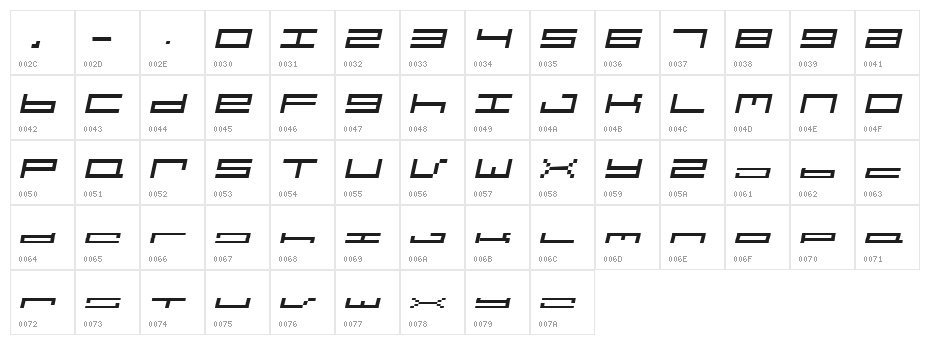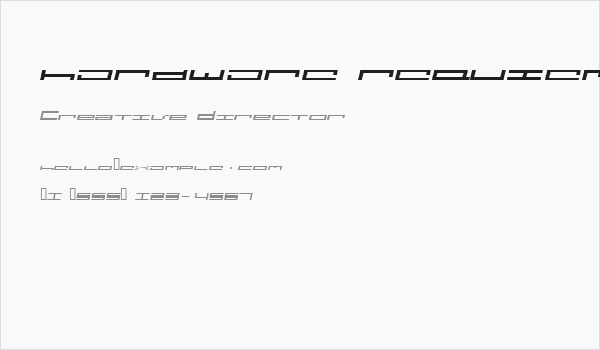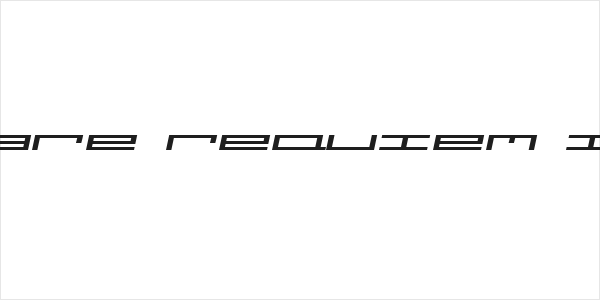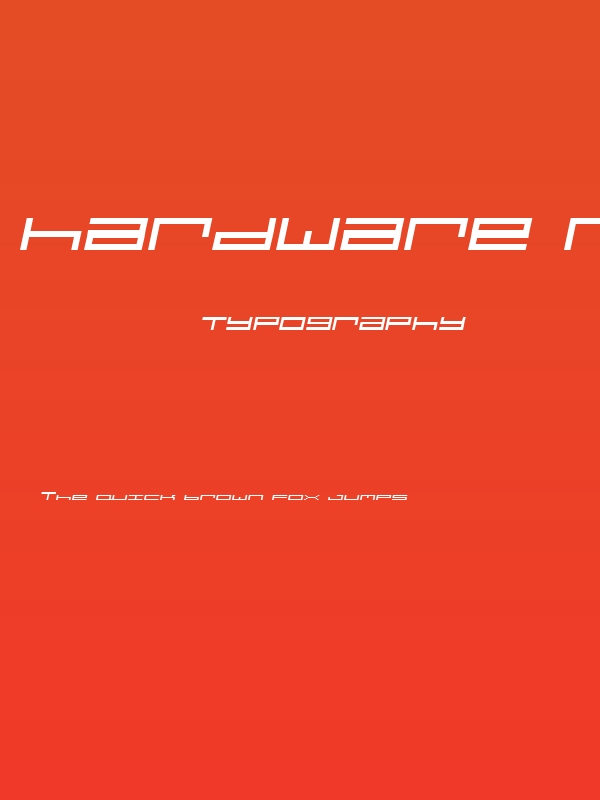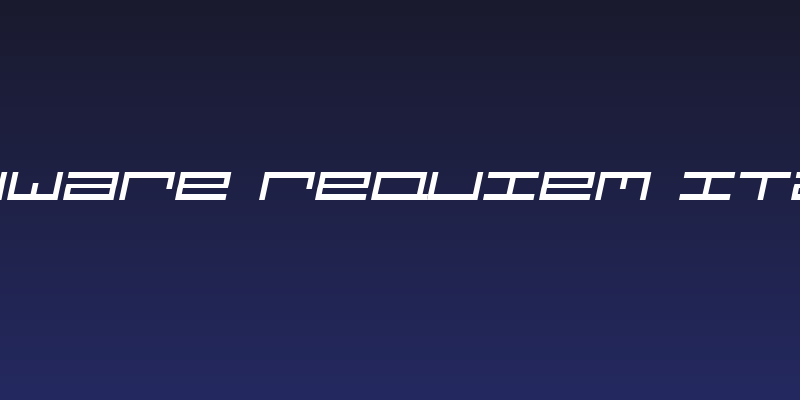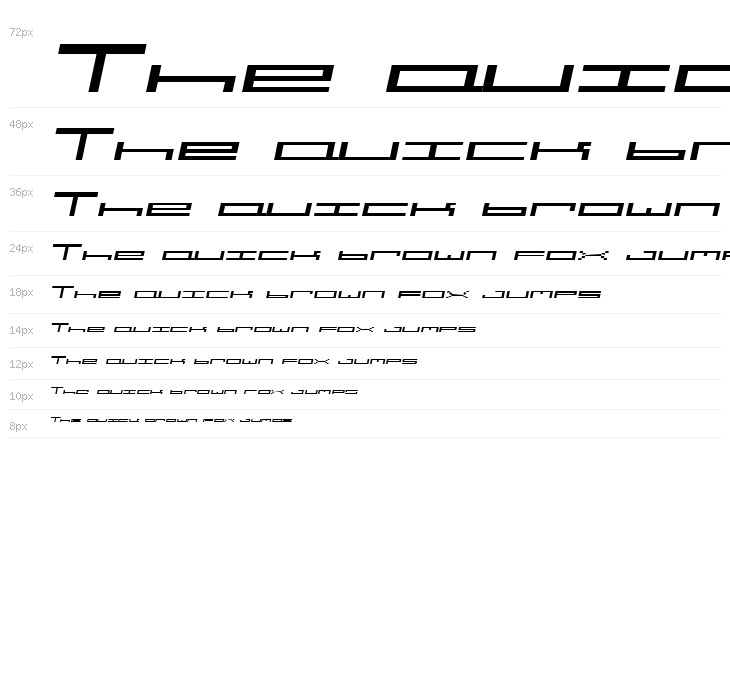
hardware requiem italic Font
hardware requiem italic Description
This font exhibits a futuristic and digital aesthetic, characterized by its angular and geometric letterforms. The design incorporates sharp edges and a consistent stroke width, giving it a mechanical and structured appearance. The italic style adds a dynamic and forward-leaning aspect to the characters, enhancing its modern and tech-inspired look. The uppercase and lowercase letters maintain a uniform style, with the numerals and special characters seamlessly integrating into the overall design. This font's unique style makes it suitable for projects that require a contemporary and high-tech feel.
| Use Case | Logos, Headlines, Digital interfaces |
| Proposed Projects | Ideal for tech branding, video game titles, sci-fi posters, and digital interfaces. |